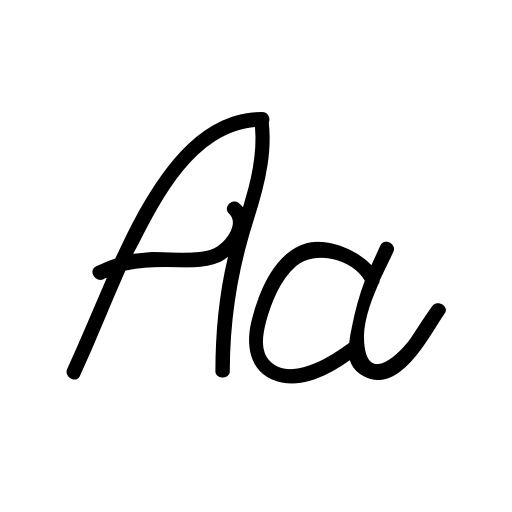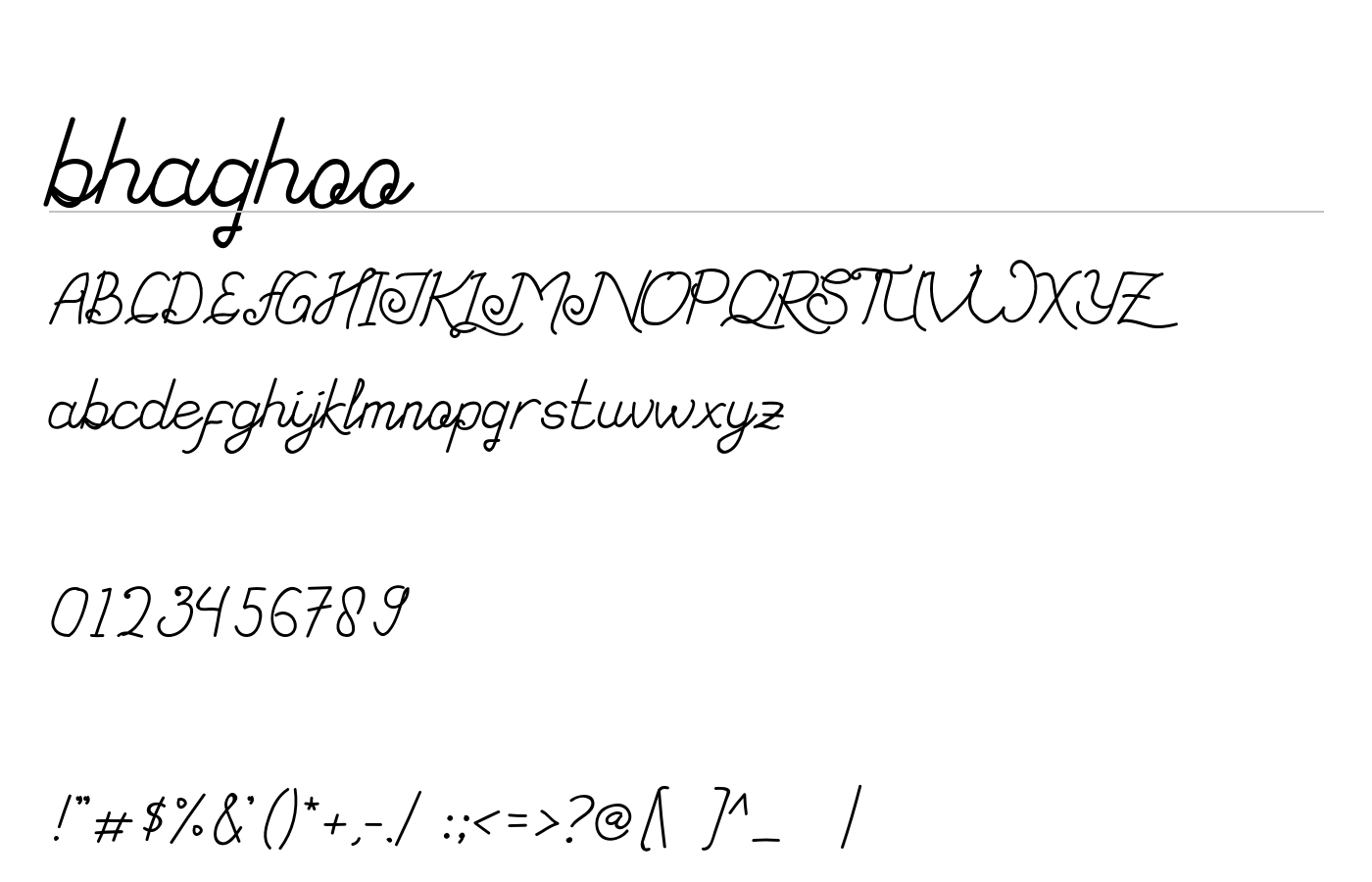
Bhaqhoo is a delicate, light-script font with elegant, flowing letterforms that combine smooth curves and subtle flourishes, lending it a hand-crafted, artistic feel. Its narrow width and moderate x-height make it suitable for refined, decorative uses, conveying a sophisticated and creative personality ideal for invitations, branding, or stylish editorial accents. This font works best where a touch of elegance and personal charm is desired without sacrificing readability.
bhaqhoo Font